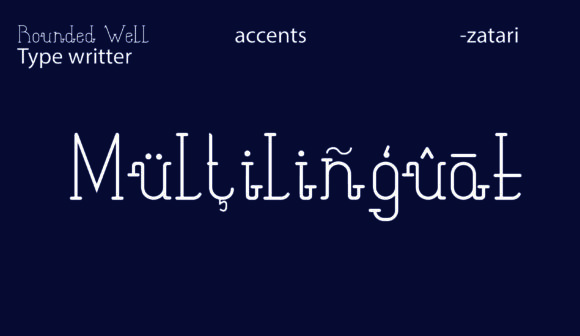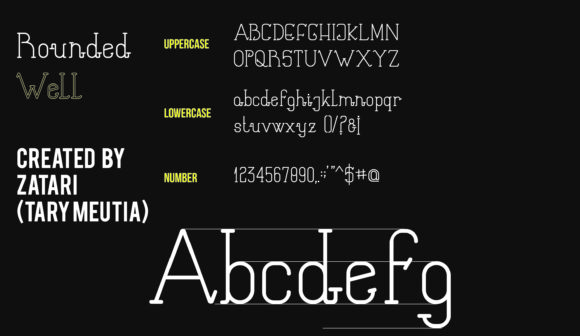
Introduction to Rounded Well Font
Have you ever stumbled upon a design element that instantly sparks a creative idea? For me, it was discovering the Rounded Well Font – a charming and unique typeface that effortlessly elevates any design project. With its delightful rounded edges and playful feel, it’s no wonder this font has become a go-to choice for designers seeking to add a personal touch to their work.
As a valuable design resource, Rounded Well Font offers endless possibilities for creative projects, from branding and marketing materials to digital products and print publications. Whether you’re working on a high-quality brochure or a website with a transparent background, this font is sure to bring a touch of warmth and personality to your design.
Key Features of Rounded Well Font
- A unique, hand-drawn design perfect for creative projects, offering a high-quality aesthetic.
- Perfect for use in logos, typography, and other creative applications where a rounded, well-designed font is required.
Honest Review: Rounded Well Font
- ✨ High quality: The font is crisp and clean, making it perfect for use on various design projects.
However, I did encounter some limitations.
- ⚠️ Limited style options: The font is quite basic and doesn’t offer many stylistic variations.
- ⚠️ Not ideal for complex typography: Due to its simplicity, it may not be the best choice for projects requiring intricate typography.
Overall, the Rounded Well Font is a decent design resource, but it’s not without its limitations. While it’s a great option for simple design projects, it may not be the best fit for more complex or creative projects.
Rounded Well Font
Rounded Well Font is a versatile and high-quality design resource ideal for various creative projects. Its unique rounded shape and transparent background make it perfect for adding a touch of elegance to your designs.
Tips for Getting the Most Out of Rounded Well Font
To get the most out of Rounded Well Font, use it in combination with other design elements to create a cohesive and visually appealing design. Experiment with different font sizes, colors, and arrangements to find the perfect balance.
Rounded Well Font is perfect for:
- Branding and logo designs
- Infographics and data visualizations
- Editorial and magazine designs